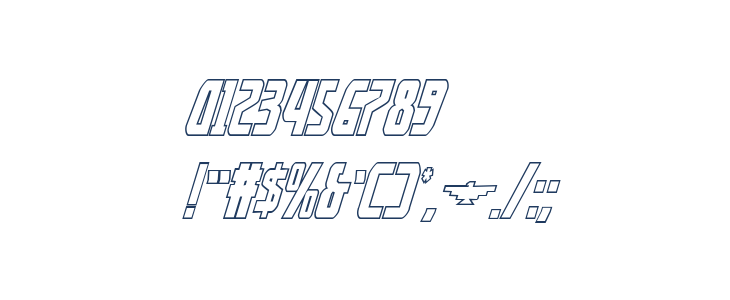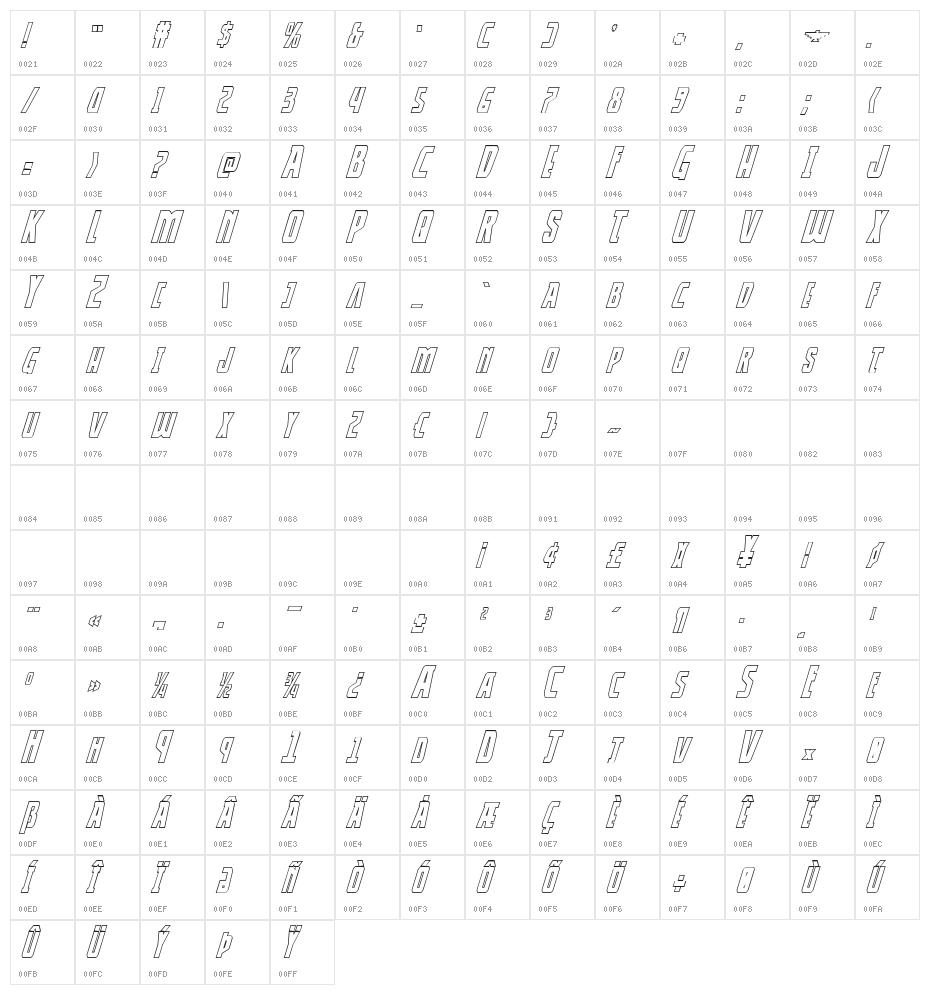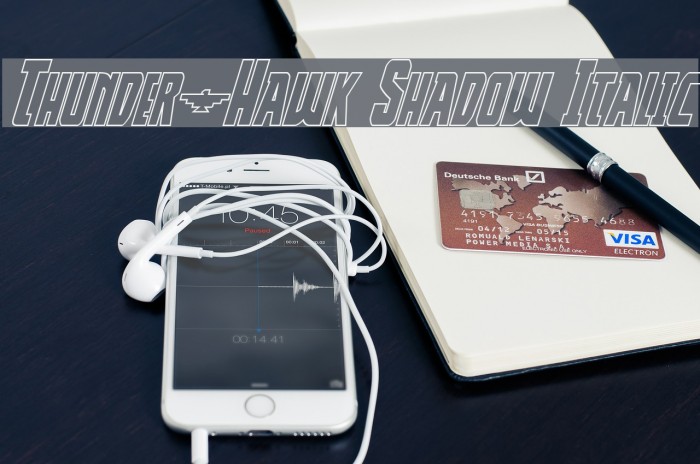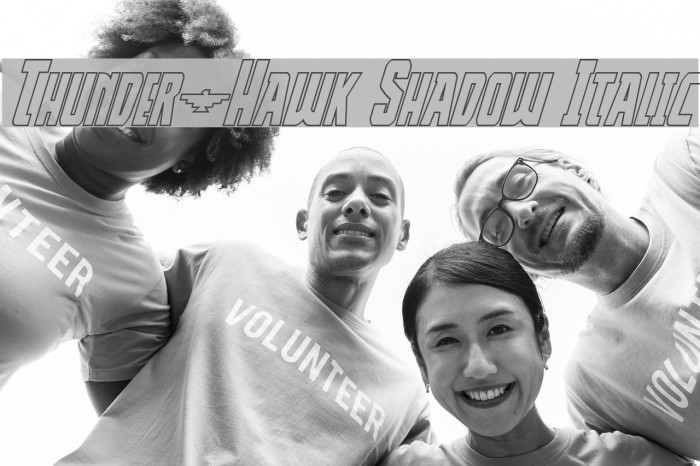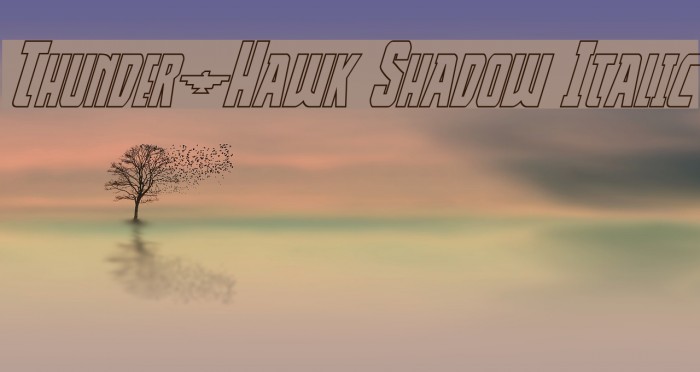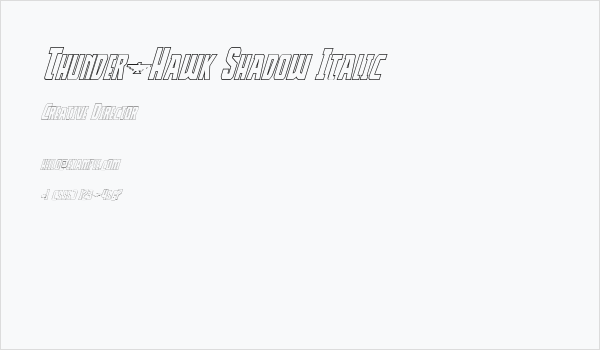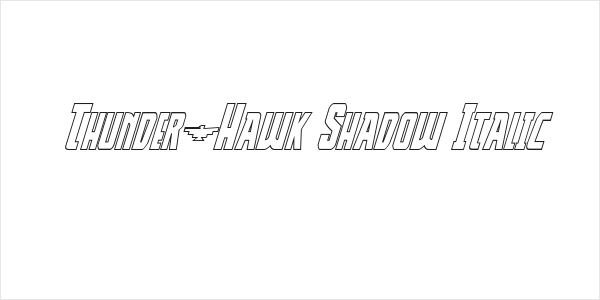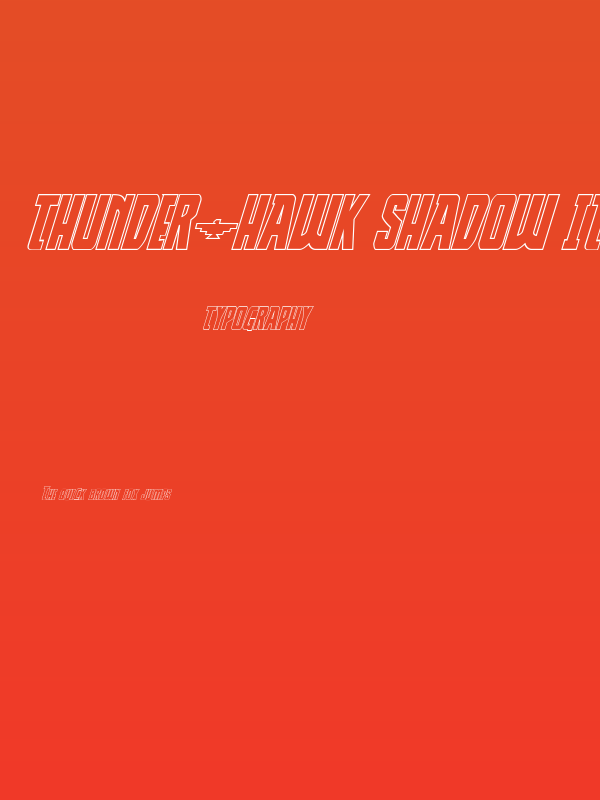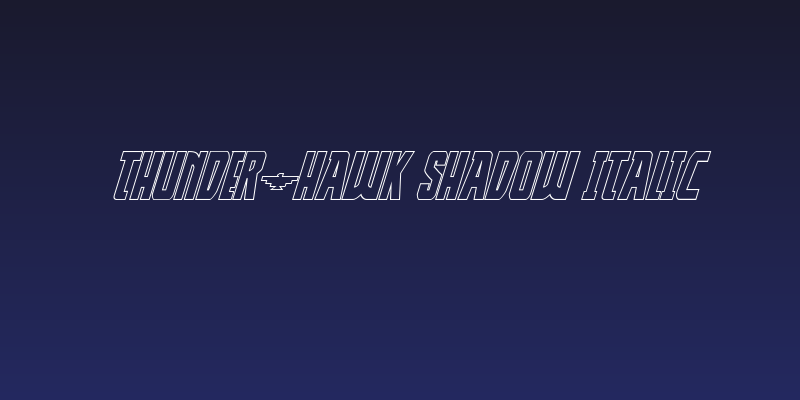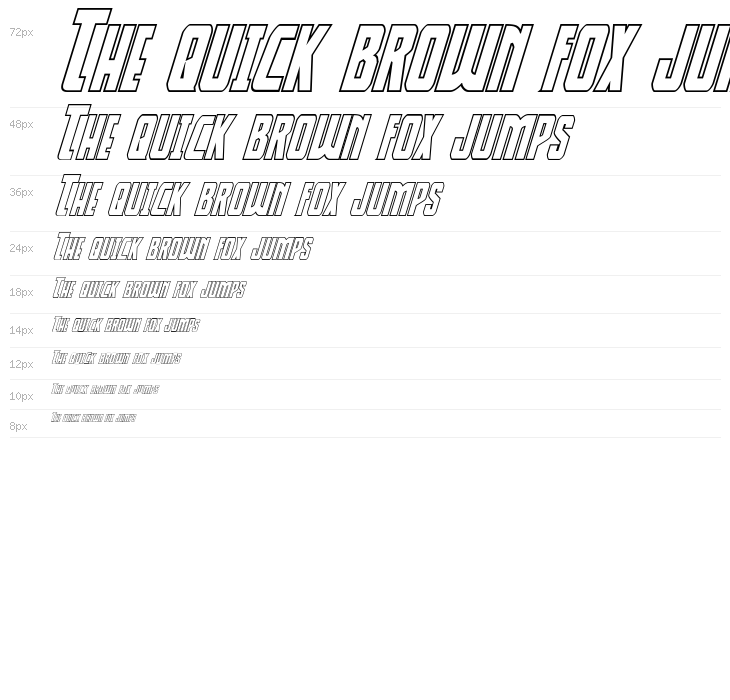
Thunder-Hawk Shadow Italic Font
Thunder-Hawk Shadow Italic Description
This font features a bold and dynamic design with a distinct shadow effect that gives it a three-dimensional appearance. The characters are angular and slightly condensed, creating a sense of movement and energy. The uppercase letters are particularly striking, with sharp edges and a forward-leaning italic style that enhances the font's boldness. The numbers and special characters maintain the same energetic style, making the font versatile for various uses. Its unique shadow effect adds depth, making it ideal for eye-catching designs.
| Proposed Projects | Ideal for sports branding, action-themed posters, video game titles, and dynamic logos. |